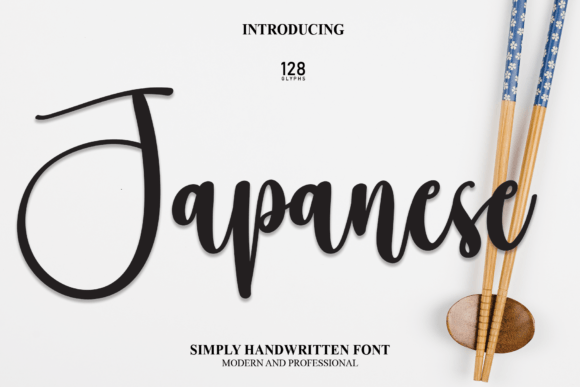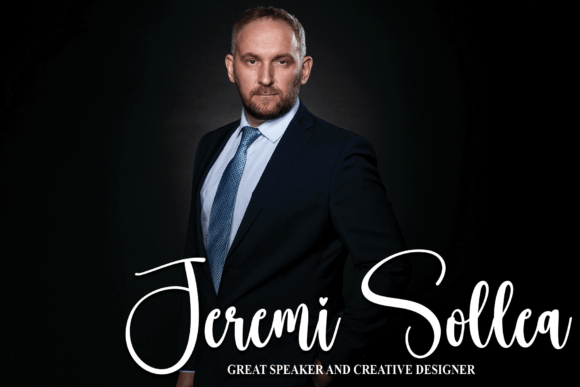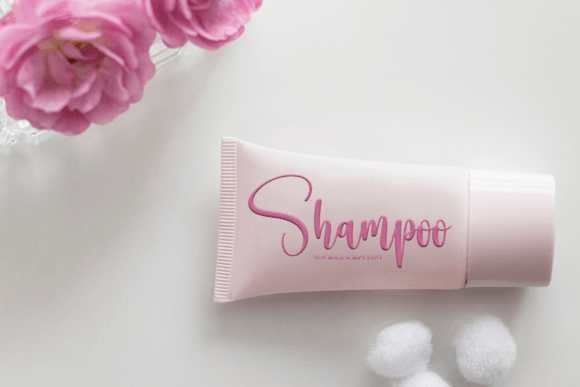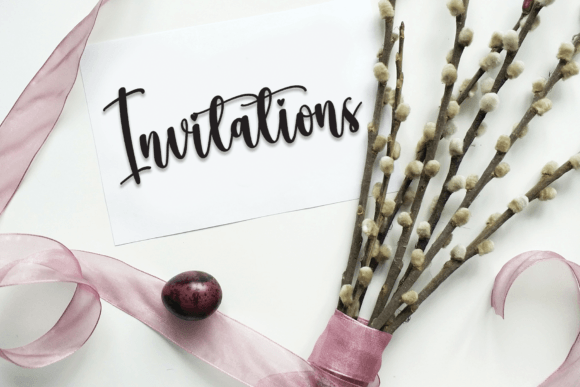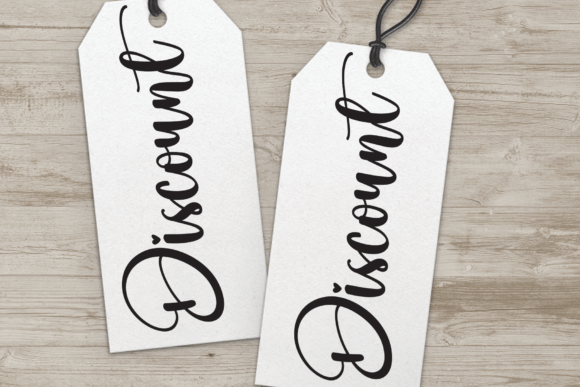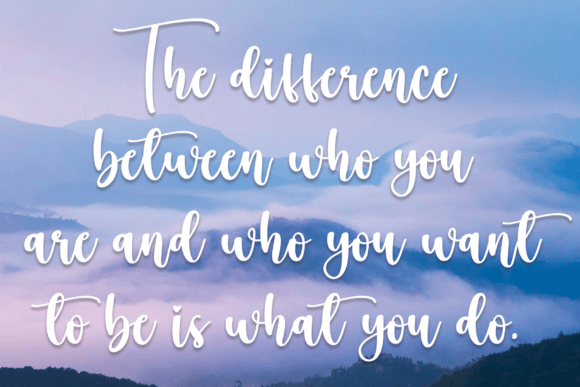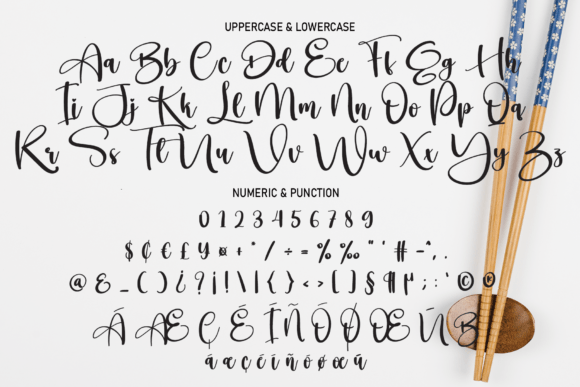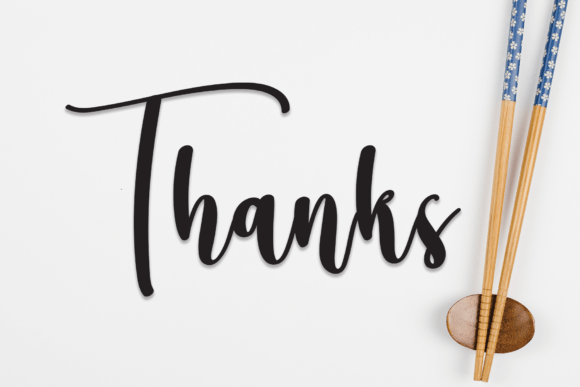
Japanese Font
About Japanese Font
Japanese’s latest lettering style encapsulates the elegance and cultural richness of Japan, making it an impeccable choice for an array of creative projects. From crafting captivating wall displays to setting the tone for special occasions with wedding invitations, these letters seamlessly adapt to various applications, including social media post logos, attention-grabbing advertisements, alluring product packaging, innovative product designs, enchanting labels, and even enhancing the visual allure of photography through watermarks.
In the realm of visual aesthetics, Japanese’s letters bring a touch of the Far East to wall displays. The intricate and artistic strokes create a visually engaging atmosphere, transforming spaces into cultural hubs that leave a lasting impression.
For couples seeking to infuse a touch of Japanese elegance into their celebrations, incorporating Japanese’s latest style letters into wedding invitations adds a cultural and sophisticated flair. Whether it’s a script inspired by traditional calligraphy or a modern lettering style with Japanese nuances, these choices provide a unique invitation that sets the stage for a memorable celebration.
In the digital realm, Japanese’s letters evoke the artistry of Japan when used in social media post logos. They infuse a feeling of cultural richness into branding efforts, allowing businesses or individuals to make a statement that reflects the beauty of Japanese aesthetics on various social media platforms.
Marketing endeavors find a unique ally in the versatility of Japanese’s letters. They add a touch of cultural authenticity to advertisements, product packaging, and designs, creating an allure for consumers. From labels that echo the elegance of Japanese design to product designs that capture the essence of Japanese artistry, these style letters are a valuable tool for marketers and designers alike.
Photographers can explore the cultural richness of creativity by incorporating Japanese’s letters as watermarks in their work. The artistic and intricate nature of these letters adds a layer of depth to photographs, creating a visually enchanting experience for viewers.
Invitations crafted with Japanese’s letters carry an air of cultural sophistication. The ability to customize and infuse a handwritten taste ensures that each invitation is a unique reflection of the event’s theme and the host’s appreciation for Japanese aesthetics.
In the realm of stationery, Japanese’s style letters add a touch of cultural beauty to various products. From personalized notecards that convey the artistry of Japan to professional letterheads that exude a cultural flair, these letters turn everyday stationery into works of art that connect with the richness of Japanese heritage.
In summary, Japanese’s latest style letters offer a creatively versatile tool for a wide range of projects. Whether it’s infusing Japanese elegance into wedding invitations or adding a cultural authenticity to advertisements, these letters bring a touch of Eastern creativity and a handwritten taste to any project that seeks to capture the beauty and sophistication of Japanese aesthetics.